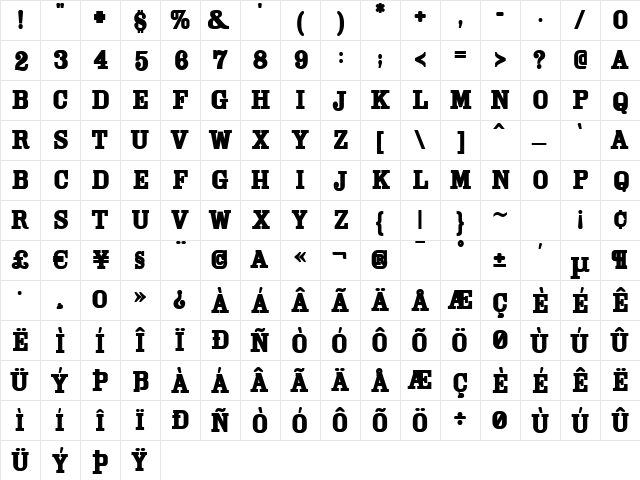
Cam Bold
| Foundry | YouWorkForThem |
| Designer | Michael Cina |
Design Context for Cam Typeface
Cam offers clean, dependable letterforms without strong stylistic allegiance, making it a practical choice for designers who need flexibility. Its bold stroke weight gives it real presence on the page.